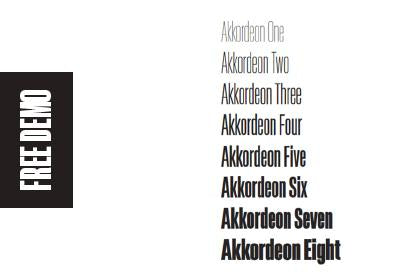
Free akkordeon font family demo for any designer that is looking to display their design professionally. Go give some love to Free Design Resources for creating this top-notch free font. Easily amaze your audience with this fancy font and make your graphic designs pop up from the crowd.